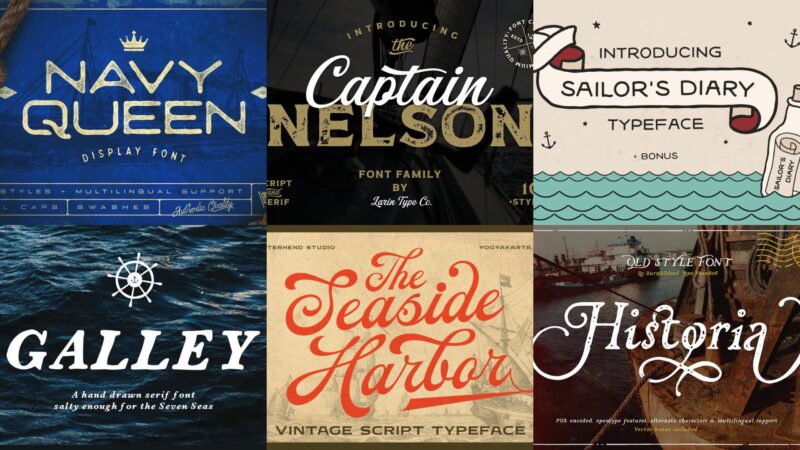
What is it about the sea that always sparks imagination? From fishermen casting their nets to royals dreaming of distant lands, the ocean has always inspired people.
Over the years, many brave individuals have sailed into its unknown waters, creating stories of adventure. Every culture has its own legends and connections to the sea. Even today, themes of the ocean, sand, and sailors continue to inspire us in different ways.
When it comes to creative designing, sea-inspired nautical fonts always breathe a SEA-LIFE in our projects. If you are working on a project with a sea theme, you will need a font that brings that nautical spirit to life.
Whether it is a Navigator font, Captain Nelson Font, or Eastern Facetype, this collection of the best nautical fonts has something for you.
While these fonts come in different styles, they all have one thing in common. They capture the essence of the ocean. Here are some of the best Nautical Fonts we’ve found recently from all around the web.
40 Nautical Fonts for Sea-Themed Projects
Nautical Dingbat
Nautical Dingbat is a charming collection of maritime symbols perfect for menu designs, beach wedding invitations, and nautical business branding. Its detailed icons add authentic seafaring charm to any ocean-themed project.
Wave Nautical Font
Wave Nautical is a bold, vintage-inspired font that captures classic sailor tattoo artistry. Its weathered, hand-drawn style makes it perfect for surf brands, coastal restaurant menus, and maritime-themed merchandise.
Freebooter
Freebooter is a swashbuckling display font with dramatic, historical flair. Its bold letterforms are perfect for pirate-themed party invitations, adventure game titles, and seafaring restaurant signage. You can also see our round up Pirate Fonts for more.
Sailor Terry Font
Sailor Terry is a rugged, authentic script font that channels traditional naval tattoo artistry. Its bold strokes and classic style work beautifully for beach bar branding, maritime logos, and vintage-inspired apparel designs.
Derphace
Derphace is a charming retro display font with a nostalgic vintage edge. Its distinctive character makes it ideal for classic logos, heritage branding, and traditional badge designs.
Sailor Girl Font Duo
Sailor Girl is a playful nautical duo that combines clean sans-serif with decorative elements. Its fresh maritime style works perfectly for beach boutiques, summer event materials, and modern coastal branding.
Pirates Rum
Pirates Rum is a gritty vintage typeface with authentic seafaring character. Its distressed style is perfect for rum labels, pirate-themed establishments, and adventure brand identities.
Historia
Historia is an elegant serif font with refined decorative touches. Its timeless style makes it ideal for luxury yacht clubs, upscale seaside resorts, and sophisticated maritime branding.
Seadoh
Seadoh is a sophisticated nautical serif with maritime personality. Its balanced design works beautifully for oceanfront property materials, sailing club communications, and editorial projects.
Seaside and Shore Font Duo
Seaside and Shore is a whimsical font duo that captures beachside charm. Its playful combination makes it perfect for beach wedding stationery, coastal gift shops, and summer event graphics.
The Seaside Harbor
Seaside Harbor is a flowing script font with nostalgic coastal charm. Its graceful strokes are ideal for beach house signs, maritime art prints, and seaside café branding.
Dark Seas
Dark Seas is a versatile five-style family with serious nautical attitude. Its range of styles makes it perfect for comprehensive maritime branding, ocean documentary materials, and professional sailing publications.
Seaside Handwriting Font
Seaside Handwriting is a natural, flowing font with maritime flair. Its authentic handwritten feel works wonderfully for beach postcards, coastal journals, and personal stationery.
Season of the Sea
Season of the Sea is an elegant handwritten font with artistic ocean spirit. Its fancy flourishes make it perfect for beach wedding invitations, luxury cruise materials, and high-end coastal branding.
Paradise Seashore
Paradise Seashore is a tropical serif that balances professionalism with beach vibes. Its refined yet relaxed style is ideal for resort materials, travel magazines, and upscale seafood restaurants.
The Ocean Font
The Ocean is a clean, modern sans-serif with subtle maritime touches. Its contemporary style works beautifully for beach lifestyle brands, surfing competitions, and marine conservation materials.
Marinaio Family
Marinaio is a professional serif family with subtle nautical influences. Its versatile design makes it perfect for maritime business documents, shipping company materials, and naval publications.
These fonts are great for signage on ships, docks, and harbors, where readability is key for safety. Nautical fonts are also popular for invitations to beach parties, sailing events, or coastal weddings.
Additionally, nautical fonts are often seen in logos for maritime businesses, maps, and charts, giving them a vintage feel. They are commonly used in packaging for seafood or beachwear and also for clothing designs related to the sea.